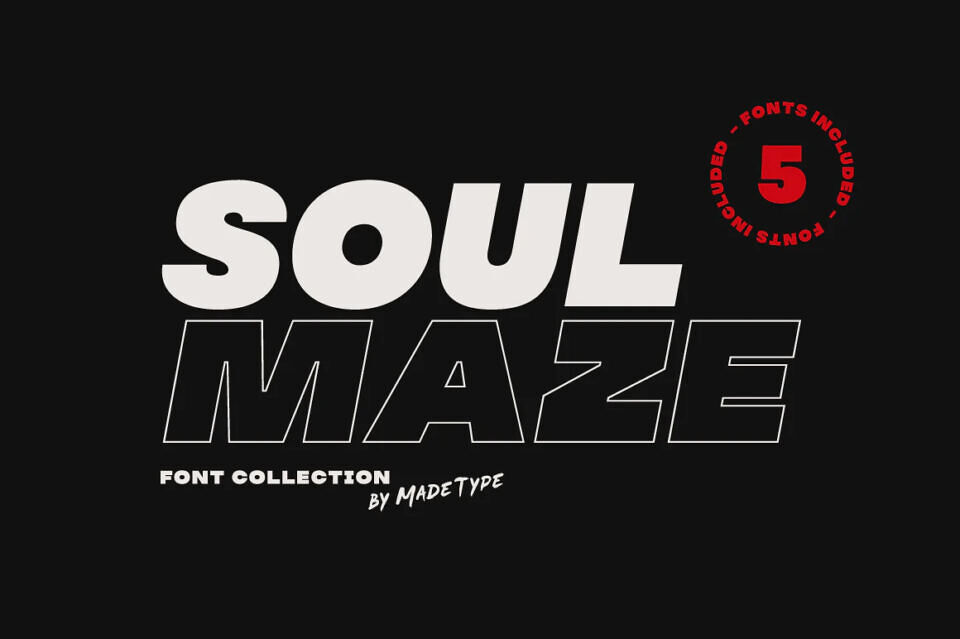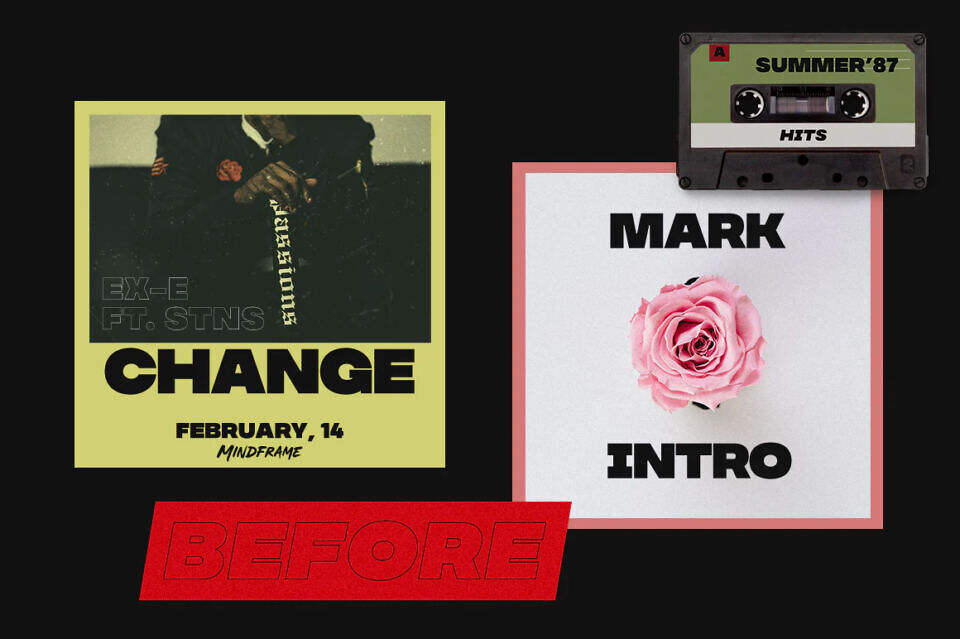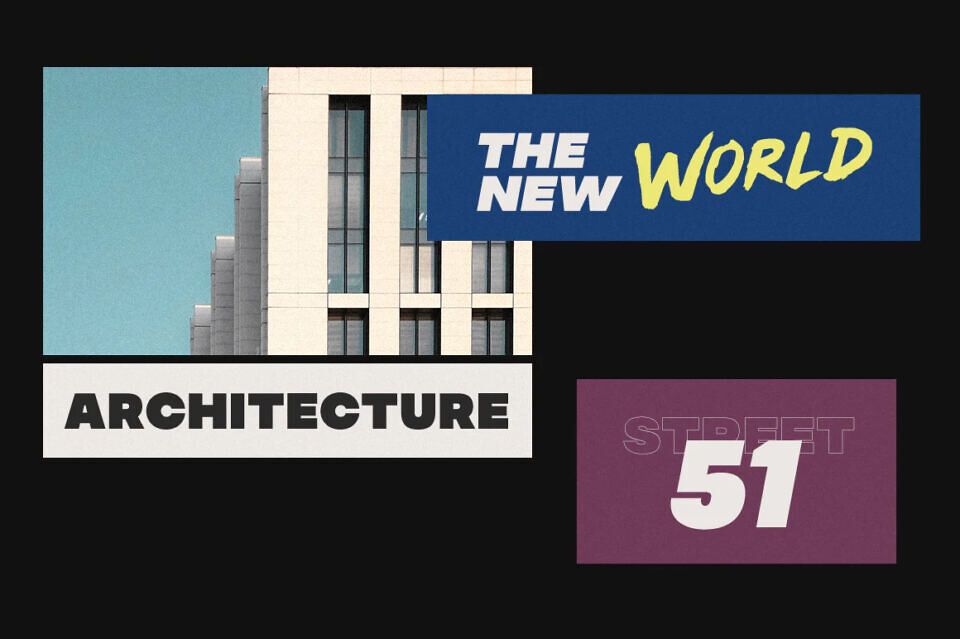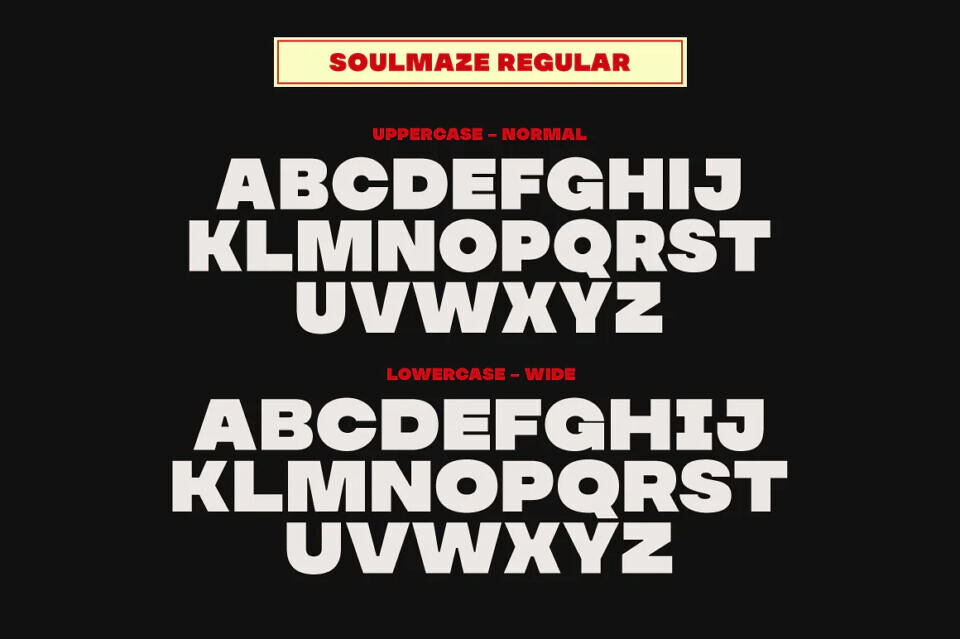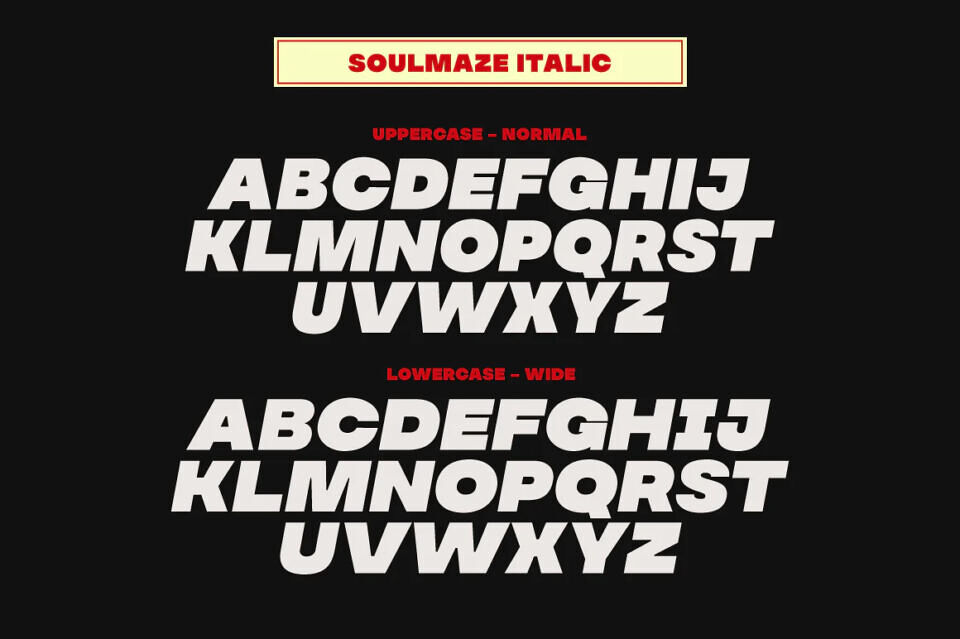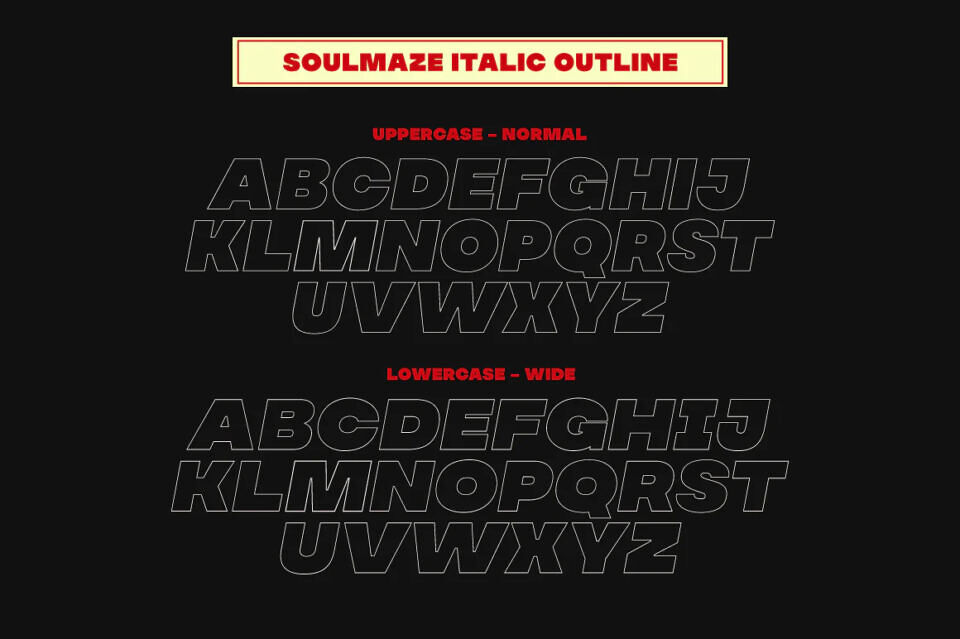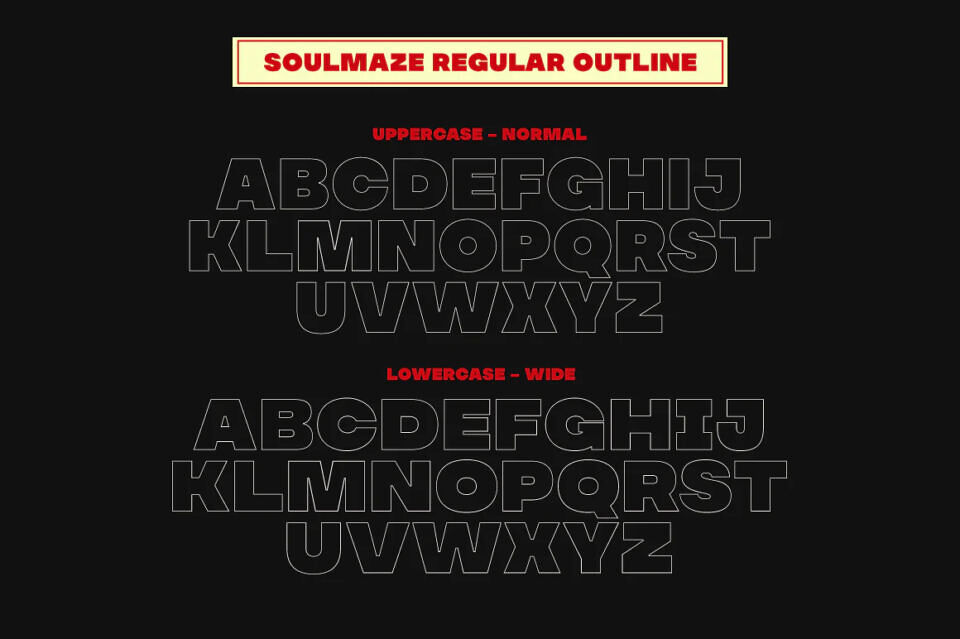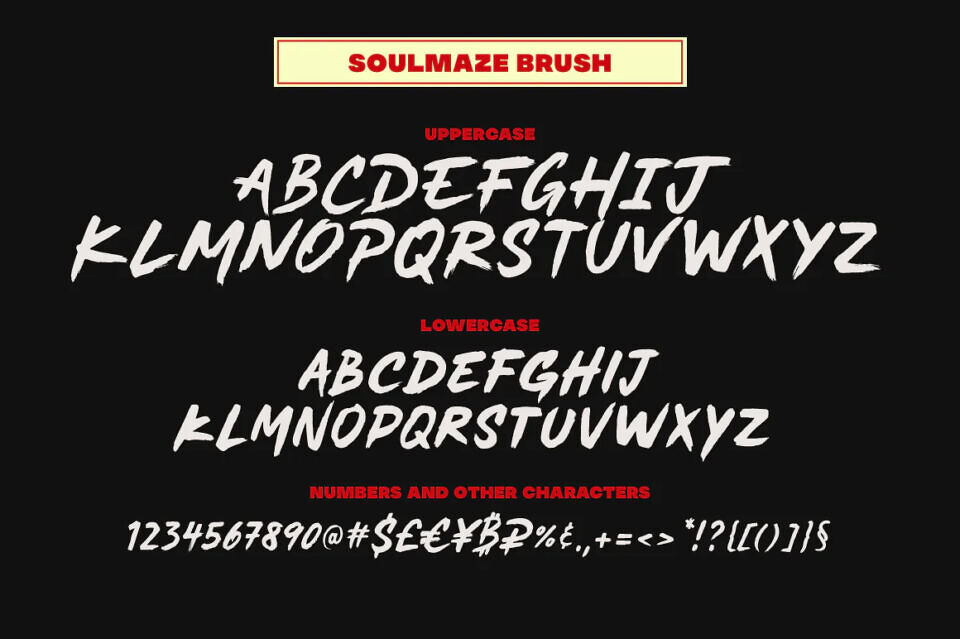
MADE Soulmaze by MADEType is a collection of five display fonts. This font family will be perfect for many projects: fashion, magazines, logos, branding, photography, quotes, blog header, poster, advertisements, etc.
Includes: Soulmaze Regular, Soulmaze Regular Italic, Soulmaze Regular Outline, Soulmaze Regular Outline Italic, Soulmaze Brush